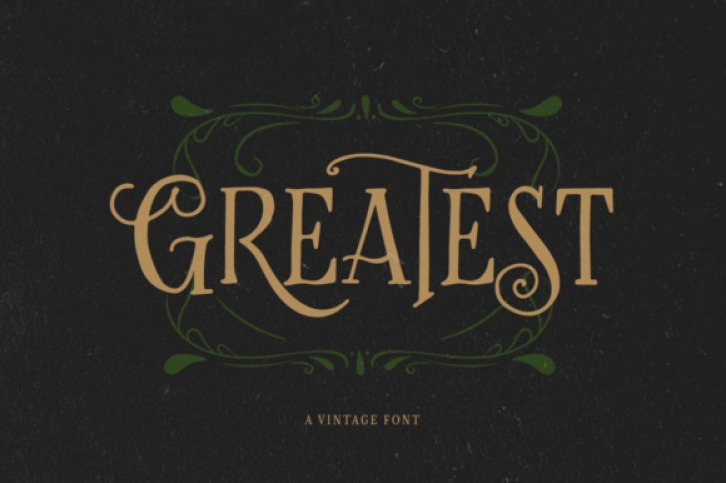
The Greatest is a vintage hand lettering typeface. It can be used to show a natural hand-lettering feel, as well as bringing the impression of nostalgia of something classic and old.